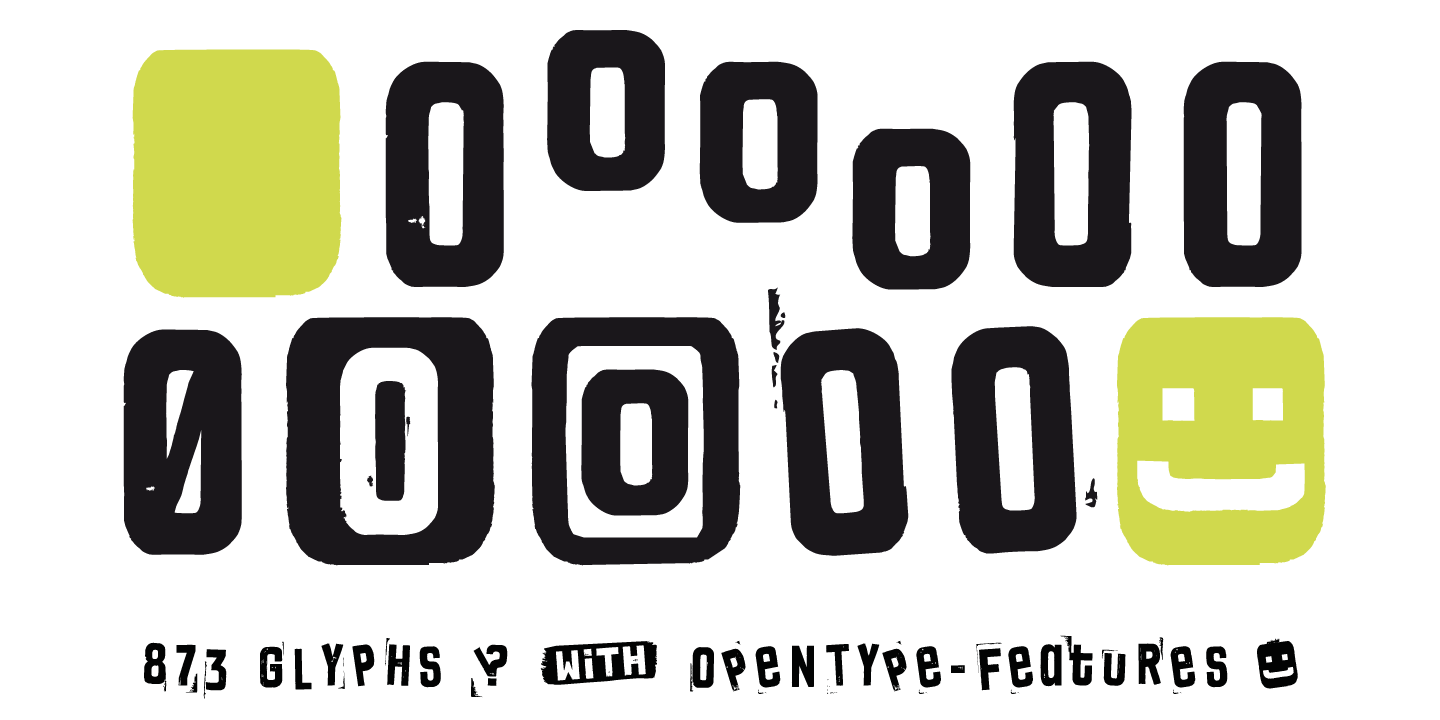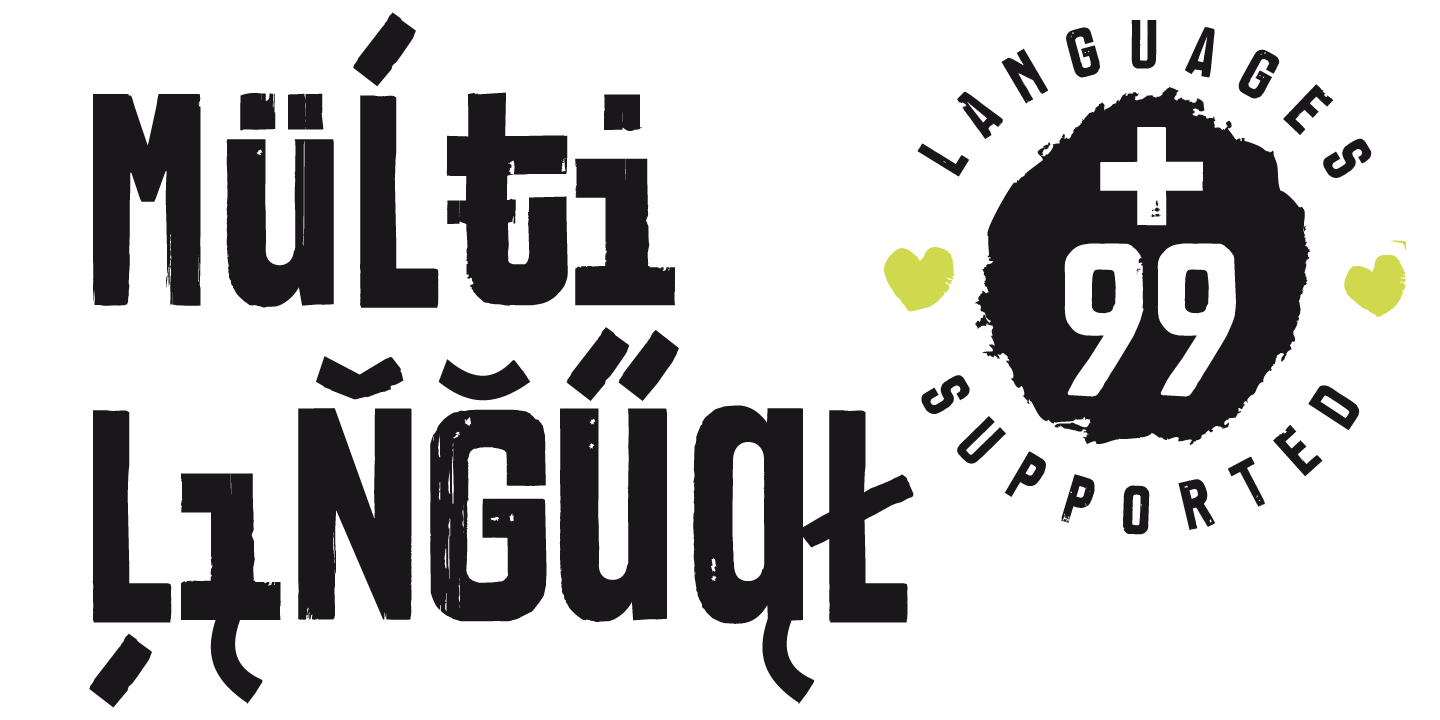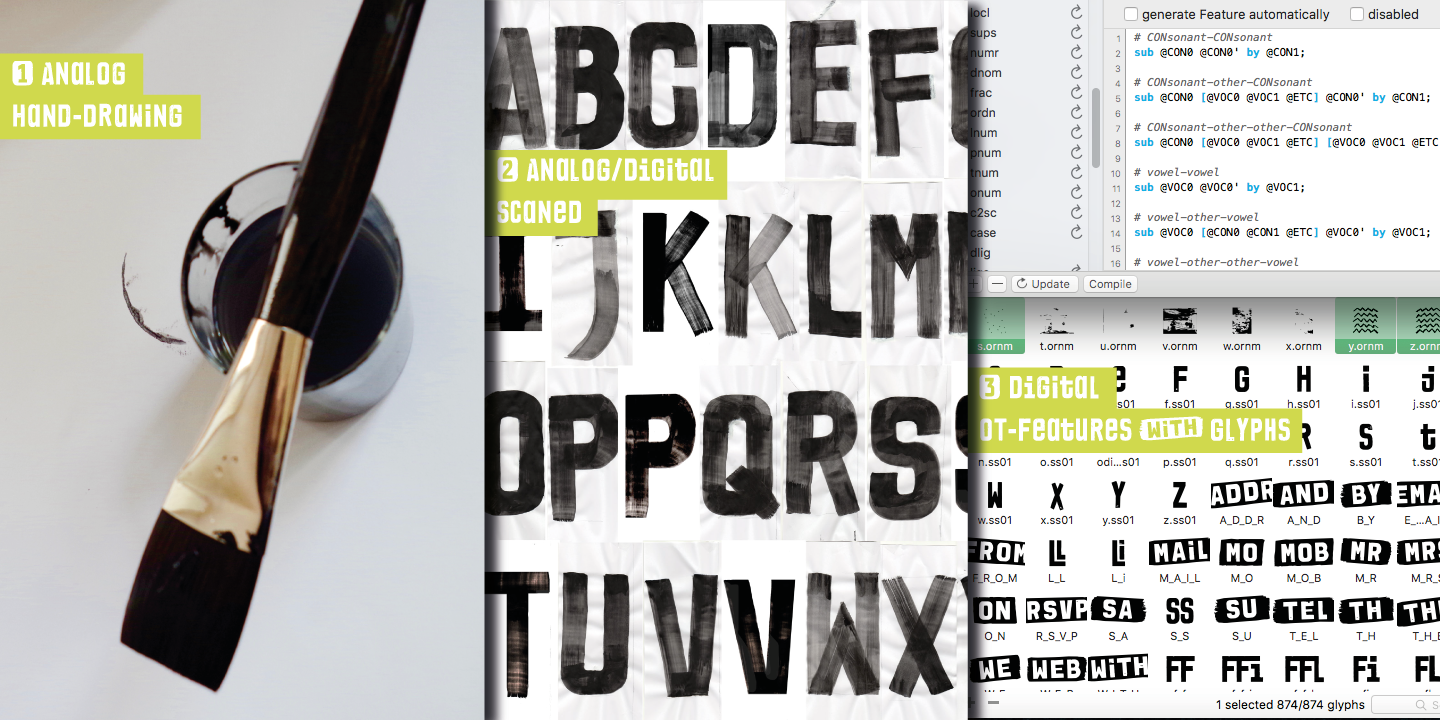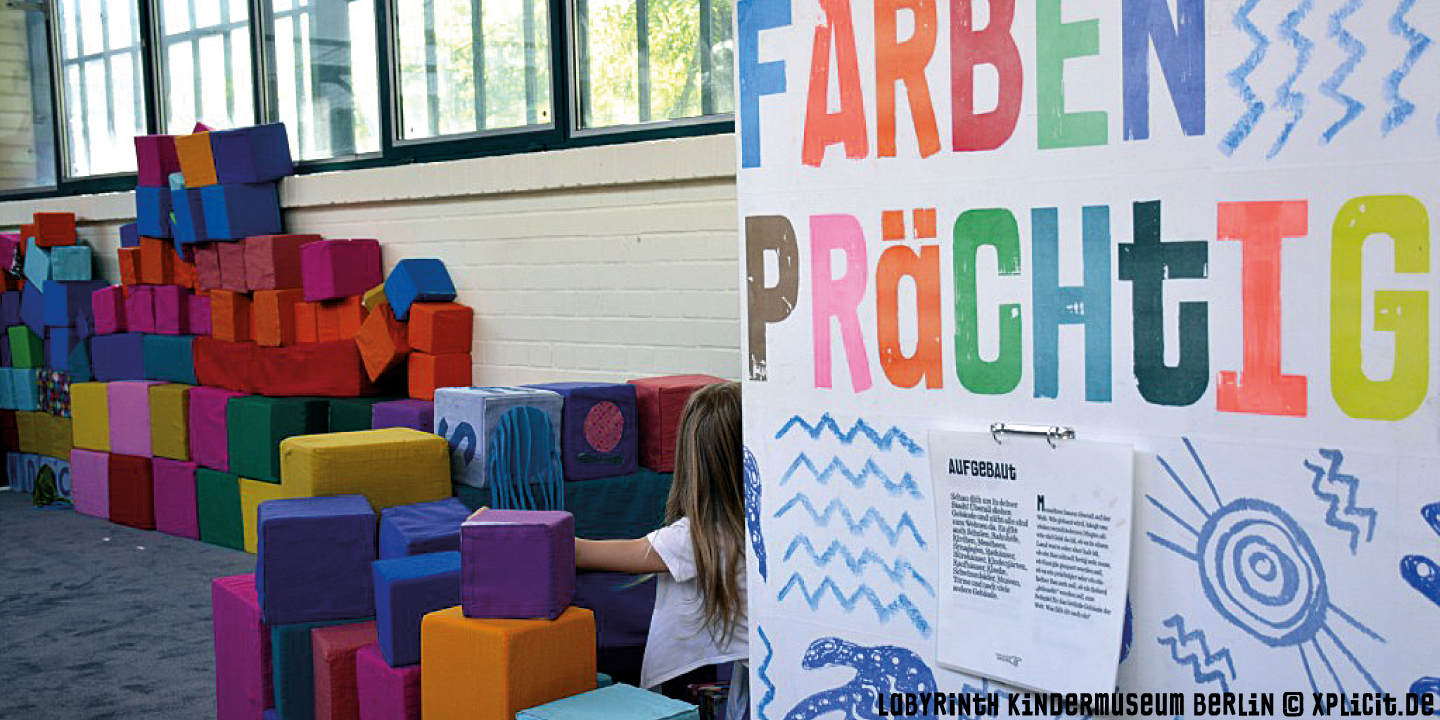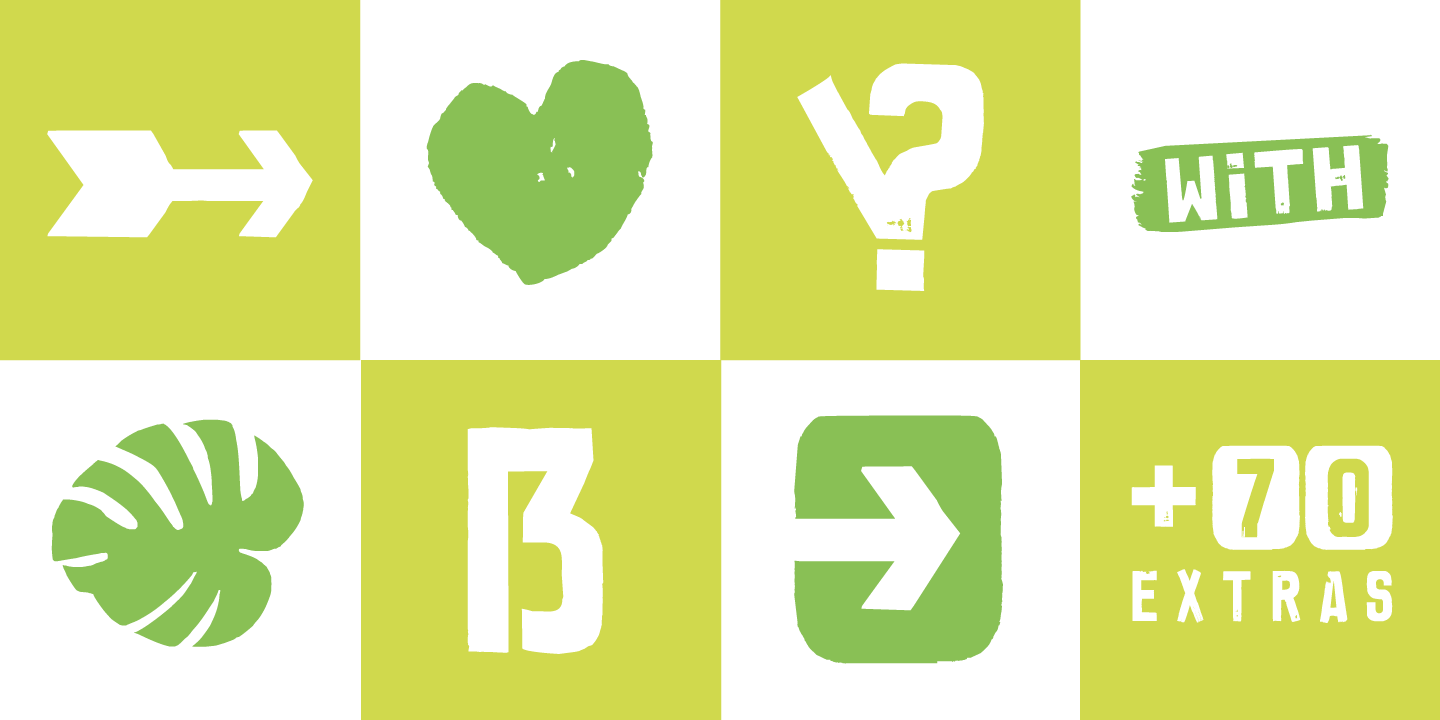
Brush Poster Grotesk Extras Font
Brush Poster Grotesk: A Playful and Versatile Typeface for Creative Projects
Brush Poster Grotesk is a unique typeface that was originally designed in 2017 for the children’s exhibition “1,2,3 Kultummel” at the Labyrinth Kindermuseum Berlin. The typeface was created by xplicit, a design studio based in Berlin, including Annette Wüsthoff, Alexander Branczyk, and Mascha Wansart, who contributed the illustrations. Manuel Viergutz later extended the font by adding additional glyphs and extras.
The main concept behind Brush Poster Grotesk is its rough and hand-drawn aesthetic. The typeface captures the organic and imperfect qualities of brush lettering, giving it a playful and lively character. The result is a sans serif display typeface with a distinctive charm and versatility.
With a total of 875 glyphs, Brush Poster Grotesk offers an extensive range of characters and decorative elements. Among these extras are over 150 arrows, dingbats, emojis, symbols, geometric shapes, catchwords, decorative ligatures, and stylistic alternates. These additions provide designers with a wealth of creative possibilities, allowing them to enhance their designs and add visual interest.
One notable feature of Brush Poster Grotesk is its decorative ligatures. By typing specific words like “LOVE” or “SMILE,” you can trigger ligature substitutions that transform the text into unique symbols, adding a touch of whimsy and surprise to your designs. This OpenType feature, known as dlig (discretionary ligatures), adds a playful element to the typeface and encourages experimentation.
Furthermore, Brush Poster Grotesk offers multiple stylistic sets, allowing you to choose from different variations of letterforms. These sets provide alternative options for specific characters, giving you even more flexibility in creating diverse and captivating typography.
The typeface is particularly well-suited for use in logos, magazines, posters, advertisements, and any project where eye-catching display type is required. Its distinctive and handmade appearance adds a personal touch and helps capture the viewer’s attention.
When used as a webfont, Brush Poster Grotesk can create decorative headlines that stand out and engage website visitors. Its playful and dynamic nature adds a sense of liveliness to digital platforms, making it ideal for websites, blogs, and online creative projects.
While Brush Poster Grotesk is a versatile typeface, it is best suited for larger display sizes where its unique details and expressive qualities can shine. When used appropriately, it can add a touch of character and creativity to your designs.
In summary, Brush Poster Grotesk is a playful and versatile typeface that offers a range of glyphs, decorative extras, ligatures, and stylistic alternates. Its rough and hand-drawn aesthetic brings a sense of whimsy and energy to any creative project. Whether you’re designing a logo, magazine layout, poster, or web headline, Brush Poster Grotesk is sure to make a memorable impression.